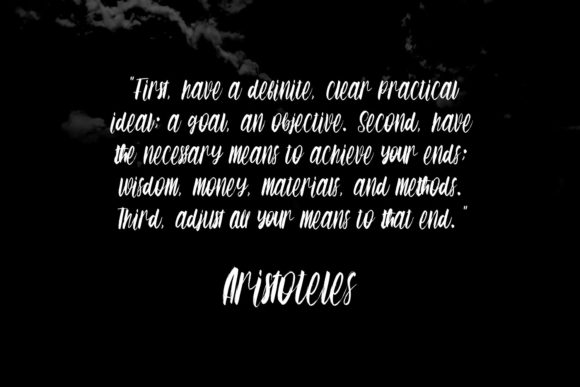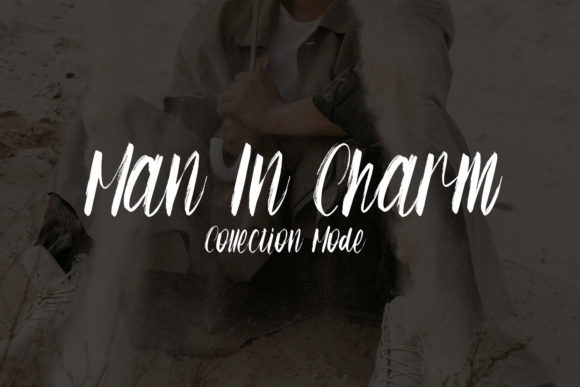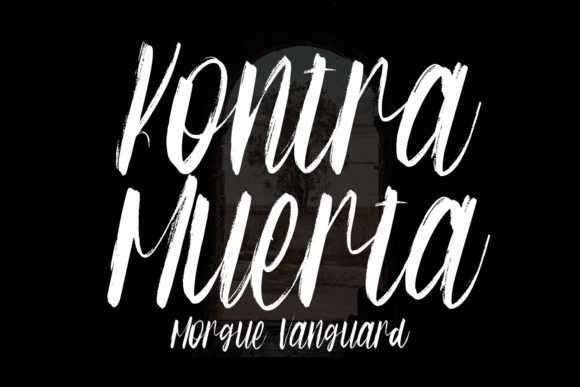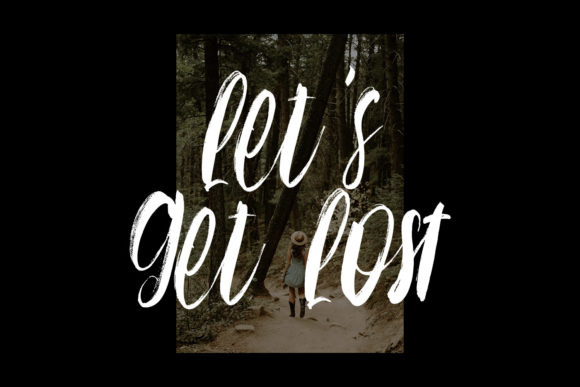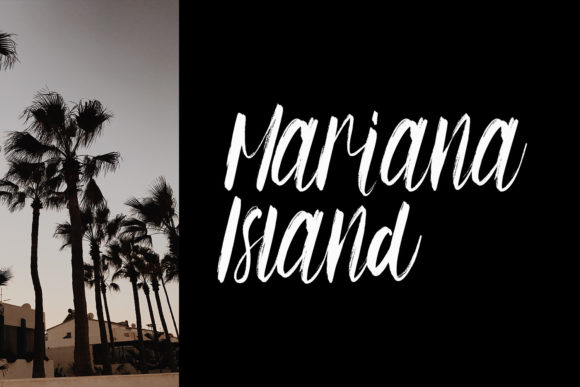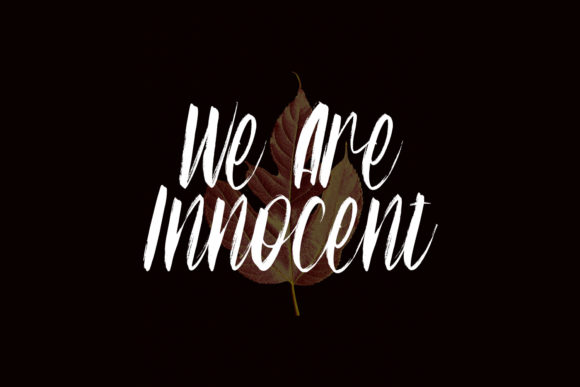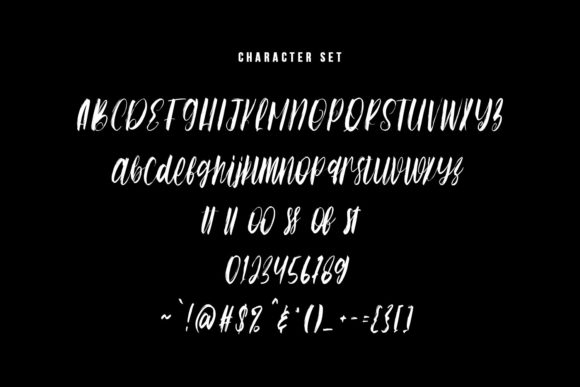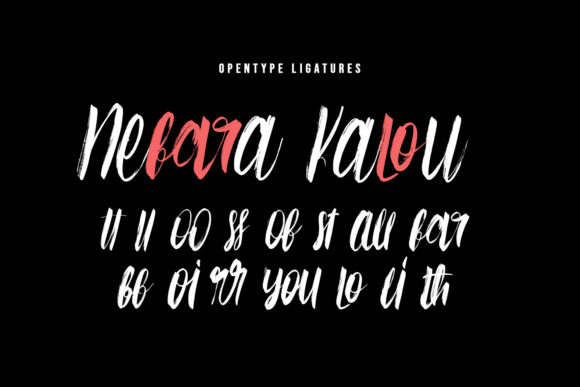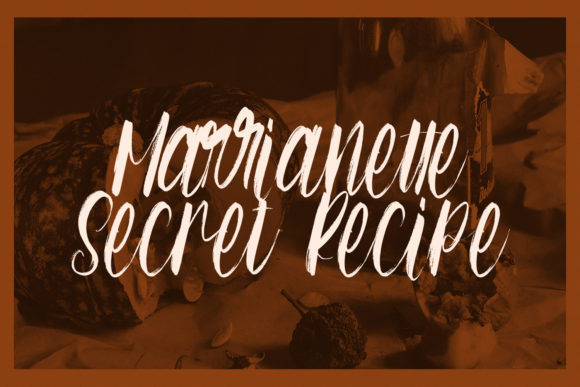
Switch Sister Font
About Switch Sister Font
Switch Sister is a lovely brushed script font featuring charming, playful characters that seem to dance along the baseline. Add this font to your most creative ideas, and notice how it makes them stand out!